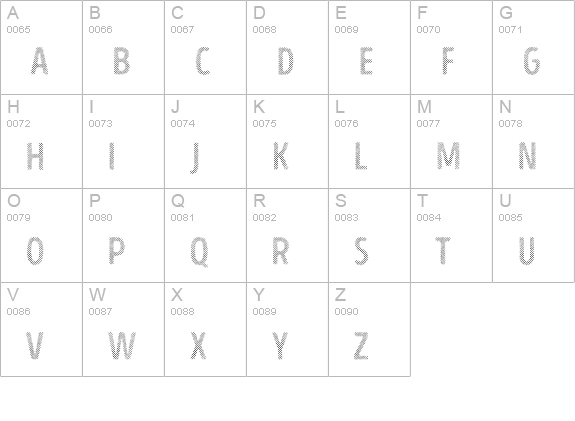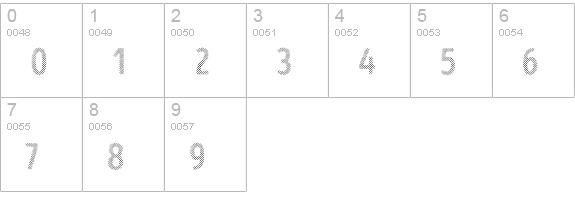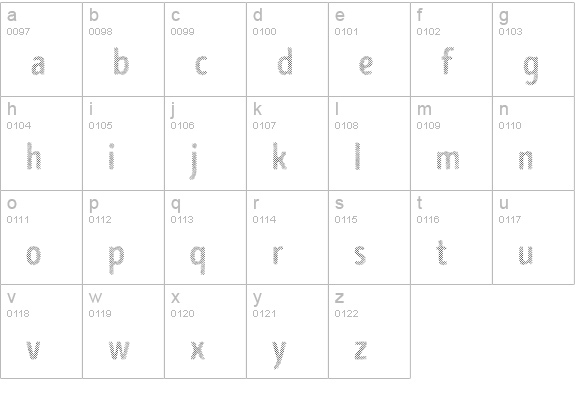
Intro Head H H1 Font Details
The Intro Head H H1 font is a modern and stylish typeface designed for eye-catching headlines and titles. Its bold and distinctive appearance makes it perfect for grabbing attention and making a statement in your designs. This versatile font is free to download at FontsMarket.com, allowing you to add a touch of sophistication and elegance to your projects without any cost. With its clean lines and sleek design, Intro Head H H1 is sure to make a lasting impression and elevate your typography game. Unlock the potential of this striking font and take your designs to the next level today!